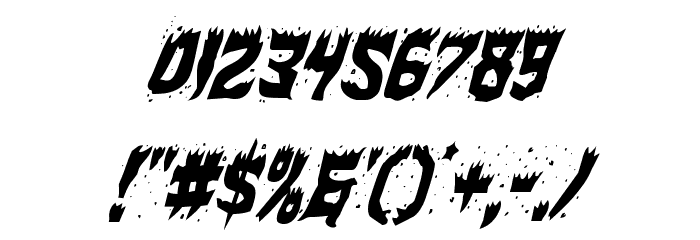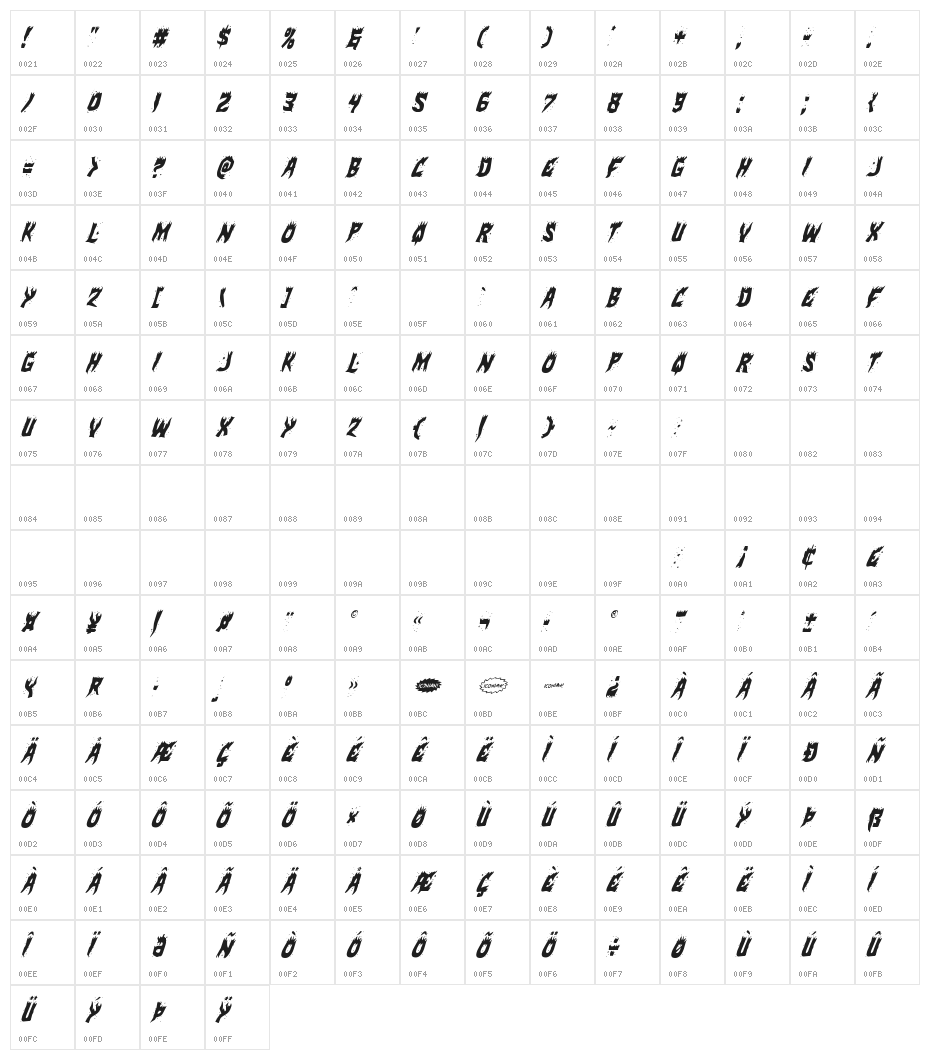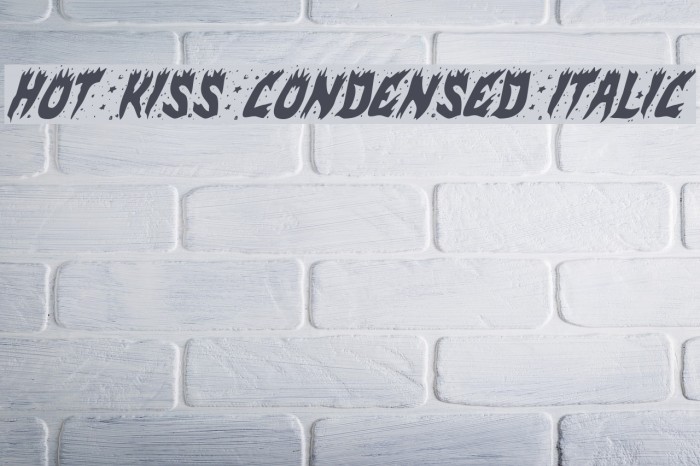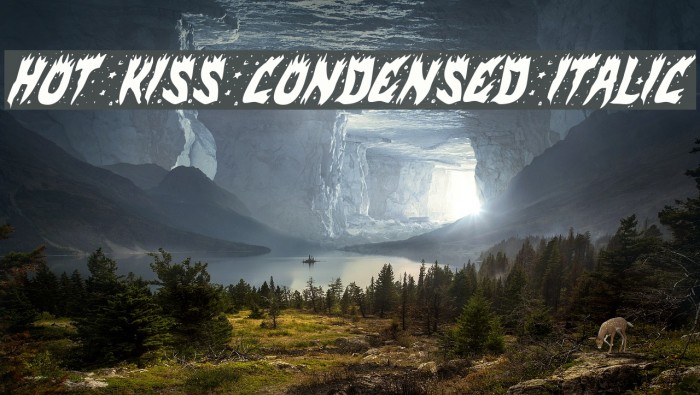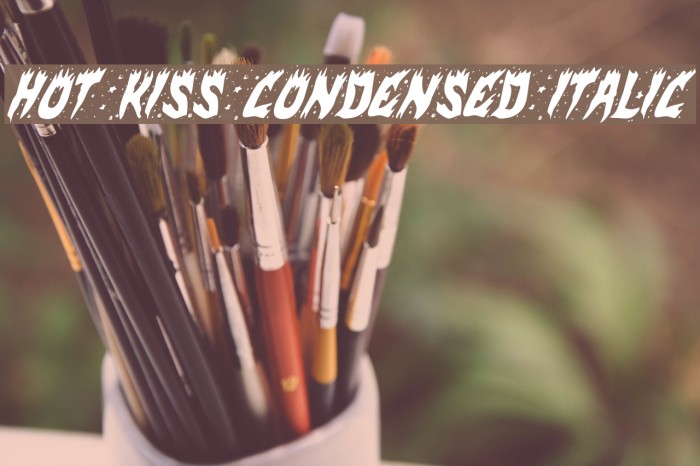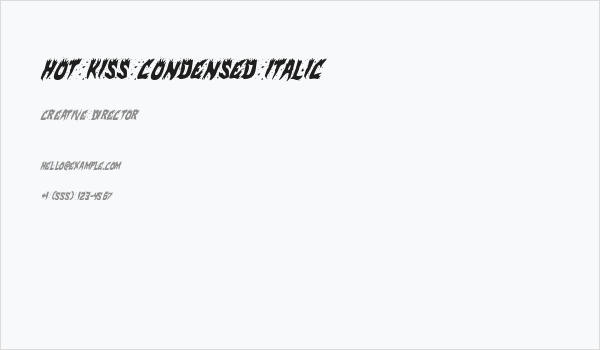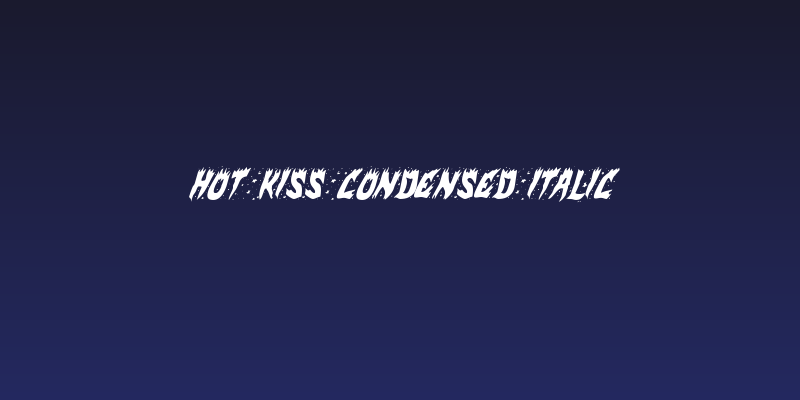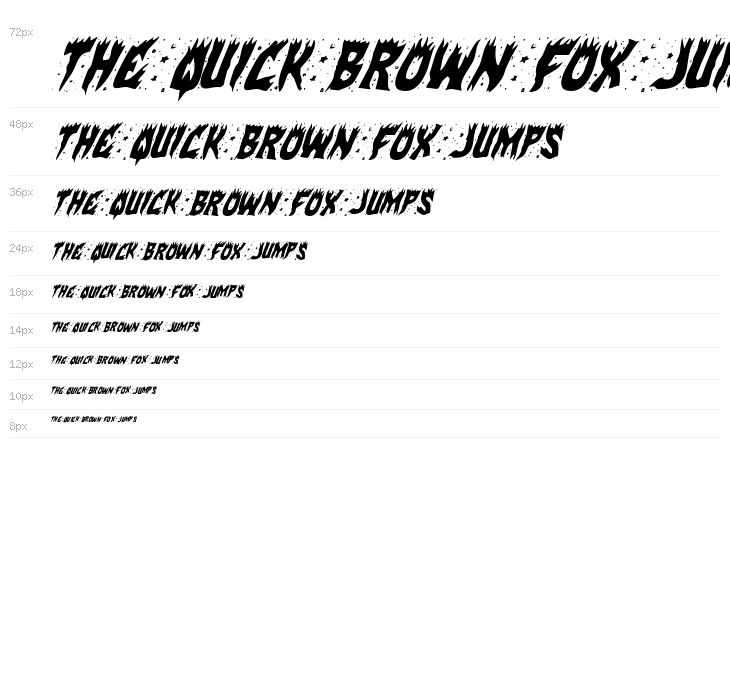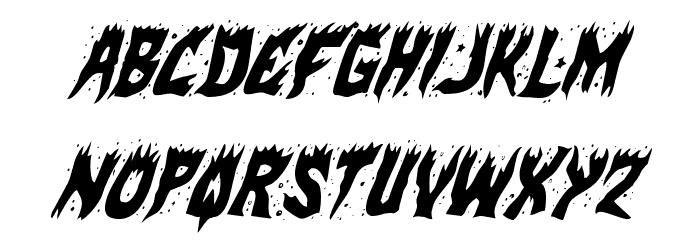
Hot Kiss Condensed Italic Font
Hot Kiss Condensed Italic Description
This font features a bold, dynamic style with a condensed and italicized form. The characters are sharply angled, giving a sense of motion and energy. The edges are irregular and jagged, creating a distressed, grunge-like appearance. This design choice adds a unique, edgy flair, making it stand out in any context. The uppercase and lowercase letters maintain a consistent style, with numbers and special characters following suit. The overall aesthetic is both modern and rebellious, suitable for projects that require a bold statement.
| Overall Style | Modern, Edgy |
| Proposed Projects | Ideal for music album covers, event posters, edgy branding, and streetwear designs. |